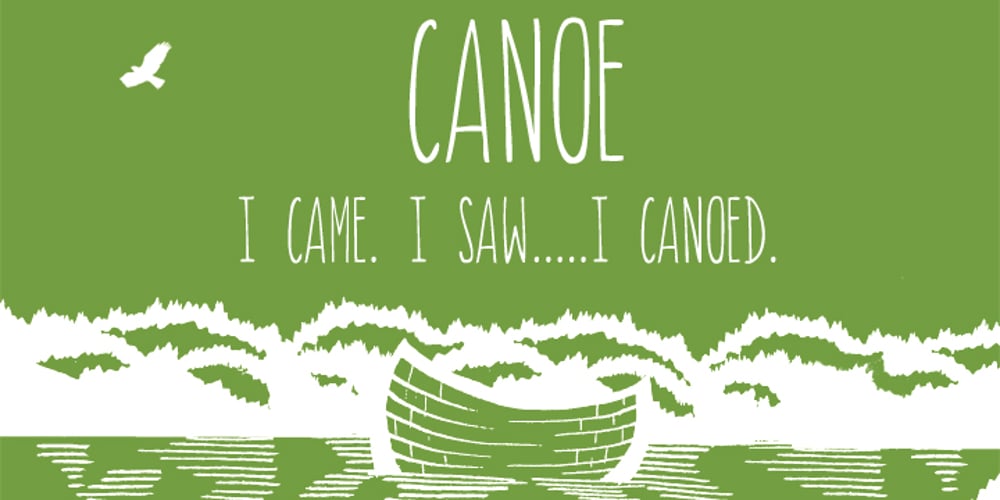
Canoe Handwriting Font Family was designed by Angie Baldelomar, Sara Snyder and published by Angie Makes. Canoe Handwriting contains 1 styles and family package options. Canoe is a fun, all-caps font with a delightfully hand-written feel. It comes “water ready” to be used in the wild on the web, save the dates, and other design projects that need a homemade touch. Its characters are wiry and tall with crossbars that hit at varying heights. Canoe also includes 1st, 2nd, 3rd ordinal capabilities as well as fractions.